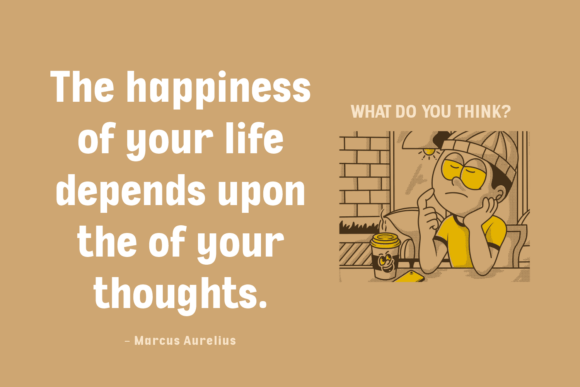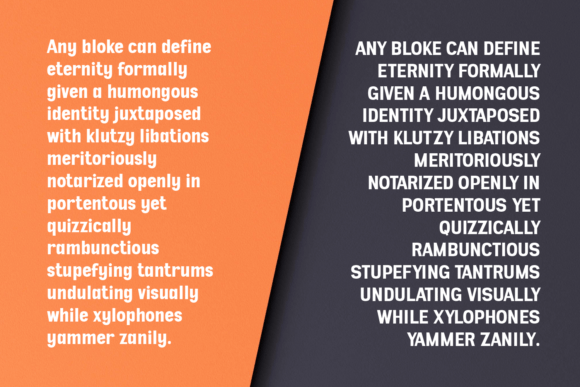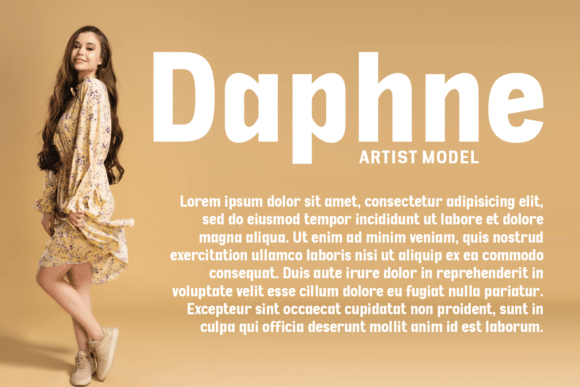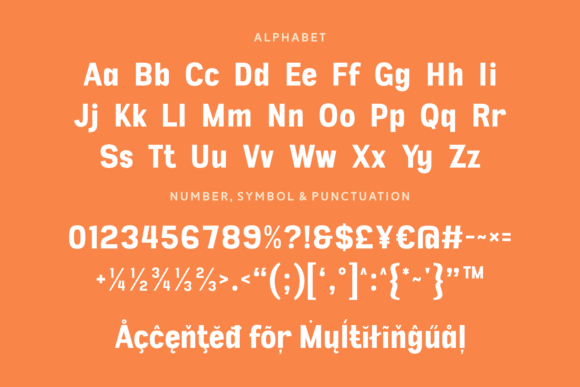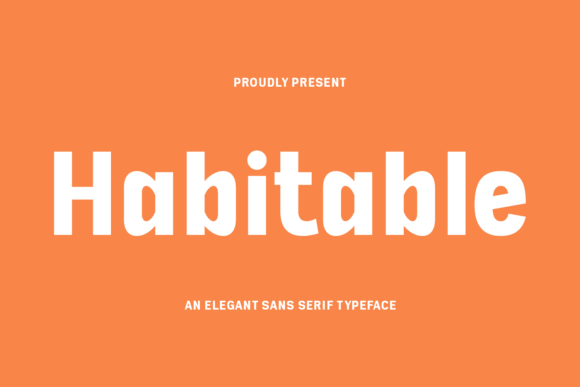
Introducing Habitable: The Perfect Font for Autumn-Inspired Designs
As the leaves change colors and the air grows crisper, designers and crafters are on the lookout for the perfect typography to capture the warmth and coziness of the autumn season. Look no further than Habitable, an elegant sans serif typeface that’s sure to become your go-to font for seasonal designs. In this article, we’ll dive into the features and benefits of Habitable, and explore how its unique characteristics make it the perfect choice for your autumn-inspired projects.
A Promotional Image that Speaks Volumes
The promotional image for Habitable says it all: a beautiful, high-contrast color palette that screams autumn, paired with a font that’s both modern and approachable. The heavy weight and soft, rounded letterforms of Habitable create a friendly feel that’s perfect for designs that need to convey warmth and coziness. Whether you’re working on a logo, branding materials, or social media graphics, Habitable is the perfect choice for designers who want to create a lasting impression.
What Makes Habitable So Special?
So, what sets Habitable apart from other sans serif typefaces on the market? Here are just a few of its standout features:
- Unique letterforms: Habitable’s soft, rounded letterforms are unlike anything you’ve seen before. They add a touch of warmth and personality to your designs, making them perfect for brands that want to stand out from the crowd.
- High-contrast color palette: The warm, rich colors of Habitable’s promotional image are perfectly suited for the autumn season. From golden yellows to deep oranges and reds, this font is sure to evoke the feelings of coziness and comfort that come with the fall season.
- Modern and approachable: Habitable’s clean lines and simple shapes make it a modern and approachable font that’s perfect for designs that need to feel fresh and contemporary.
Why Designers and Crafters Love Habitable
Designers and crafters love Habitable for a variety of reasons. Here are just a few:
- Versatility: Habitable is a versatile font that can be used in a wide range of designs, from logos and branding materials to social media graphics and more.
- Ease of use: With its clean lines and simple shapes, Habitable is an easy font to work with, even for designers who are new to typography.
- Emotional connection: Habitable’s warm, inviting feel creates an emotional connection with viewers, making it perfect for designs that need to evoke feelings of comfort and coziness.
How to Use Habitable in Your Designs
Ready to start using Habitable in your designs? Here are a few tips to get you started:
- Pair it with complementary fonts: Habitable pairs well with a variety of fonts, from serif typefaces to script fonts. Experiment with different combinations to find the one that works best for your design.
- Experiment with color: Habitable’s high-contrast color palette is one of its standout features. Don’t be afraid to experiment with different colors and combinations to find the one that works best for your design.
- Use it for headlines and titles: Habitable’s bold, heavy weight makes it perfect for headlines and titles. Use it to add emphasis and create visual interest in your designs.
Habitable is a game-changing font that’s sure to become your go-to for autumn-inspired designs. With its unique letterforms, high-contrast color palette, and modern, approachable feel, it’s the perfect choice for designers and crafters who want to create warm, inviting designs that evoke the feelings of comfort and coziness. Whether you’re working on a logo, branding materials, or social media graphics, Habitable is the perfect font for your next project.